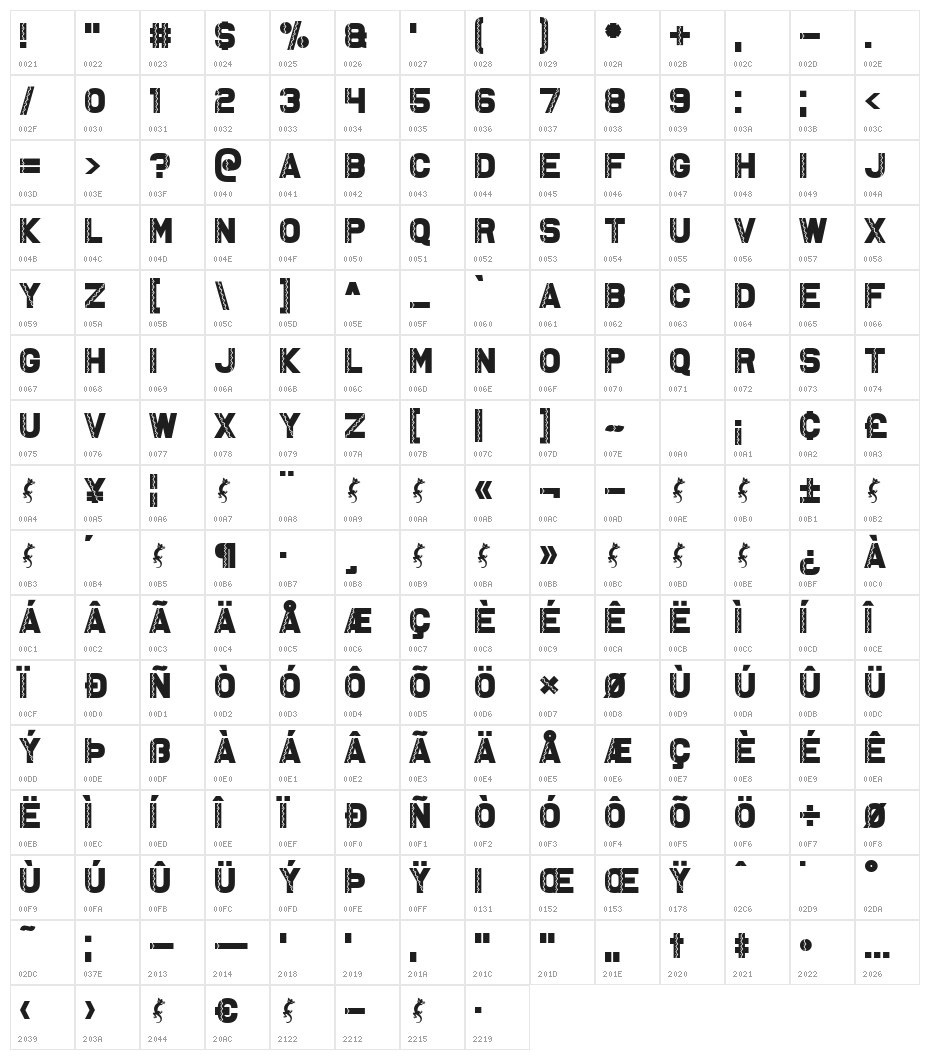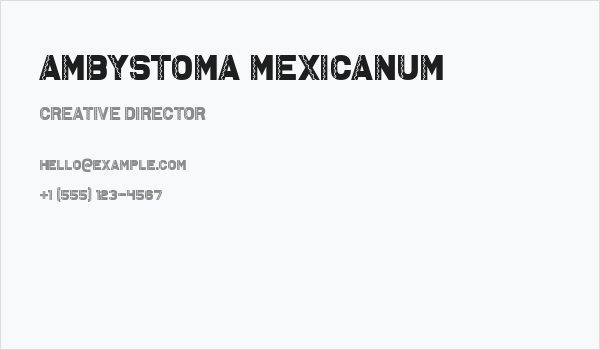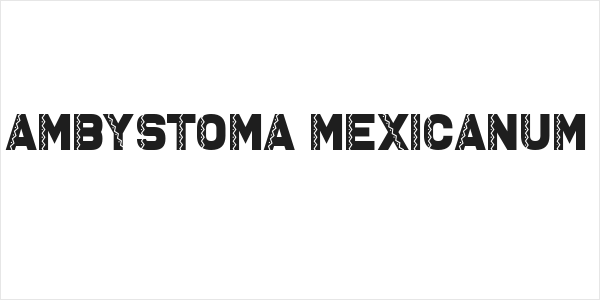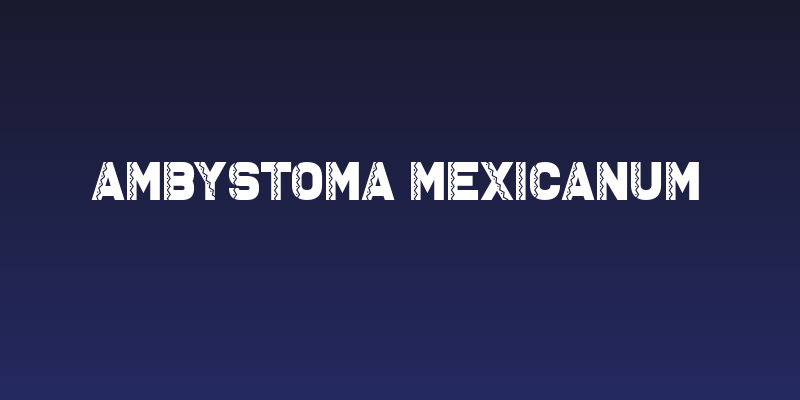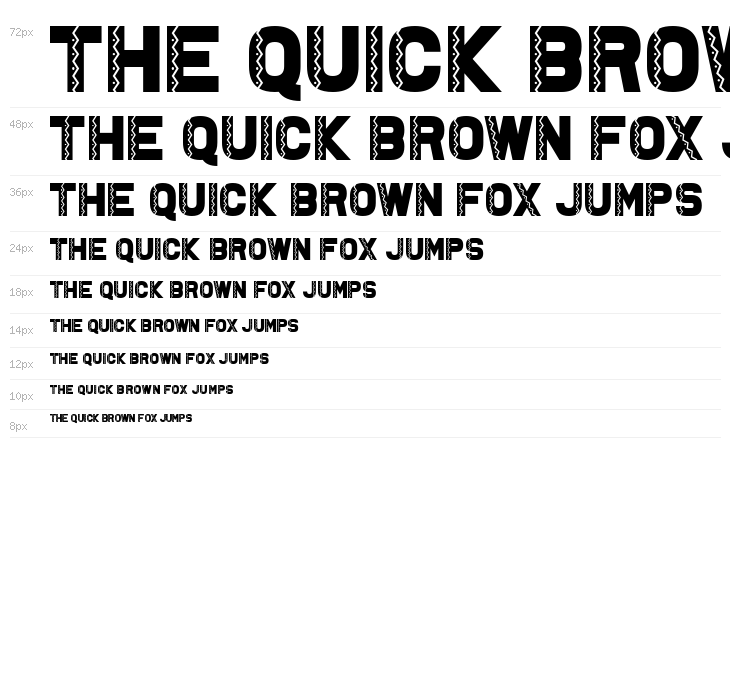
Ambystoma Mexicanum Font
Ambystoma Mexicanum Description
This font features a bold and decorative style with a unique pattern embedded within each character. The design incorporates a zigzag or wave-like motif that runs vertically through the letters, adding a distinctive flair. The characters are uniformly bold, with consistent stroke thickness, creating a strong visual impact. The font is highly stylized, making it suitable for creative and artistic projects. Its decorative elements suggest a playful and dynamic aesthetic, ideal for capturing attention in headlines or logos. The numbers and special characters maintain the same decorative theme, ensuring consistency across all glyphs.
| Proposed Projects | Ideal for creative projects such as posters, logos, and branding materials where a bold statement is needed. |